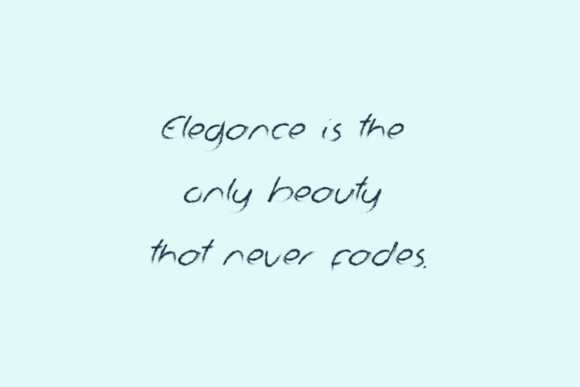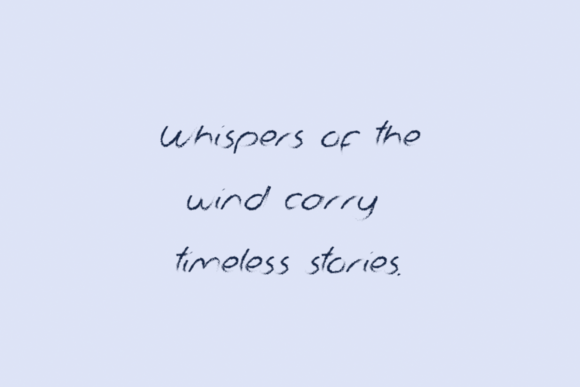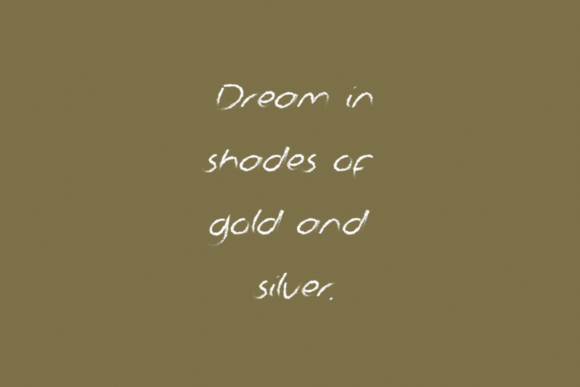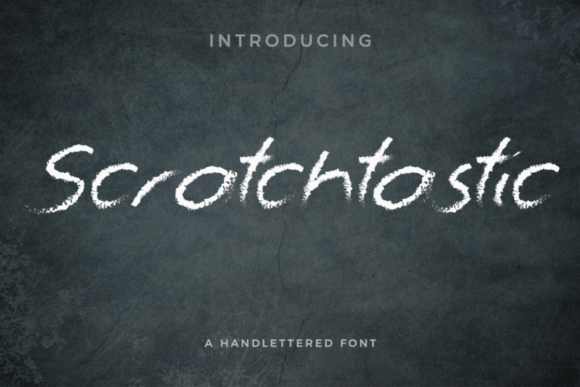
Introduction to Scratchtastic Font
Explore the delightful charm of Scratchtastic – an authentic hand-inked and hand-lettered typeface that exudes a graceful yet vivacious script style.
Perfect for adding a personal touch and a dash of whimsy to any project, Scratchtastic effortlessly embodies an artistic vibe Enjoy this exquisitely one-of-a-kind, beloved script font that speaks to creativity and individuality.
Why Choose Scratchtastic Font?
Scratchtastic Font offers exceptional quality and versatility, making it a valuable addition to your design toolkit. Whether you’re creating for personal projects or commercial use, Scratchtastic Font delivers professional results.